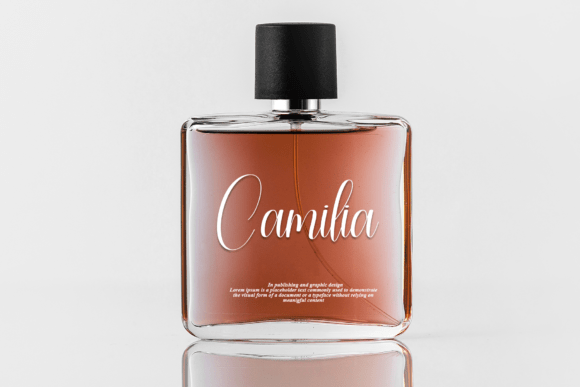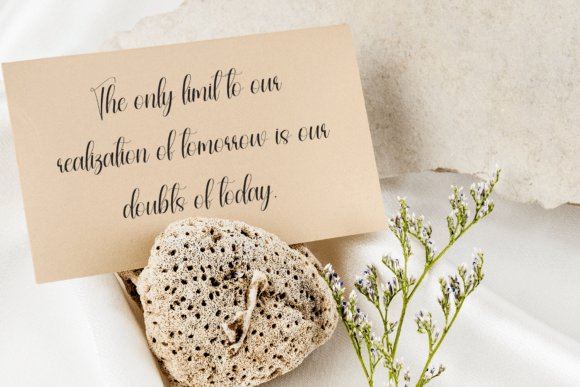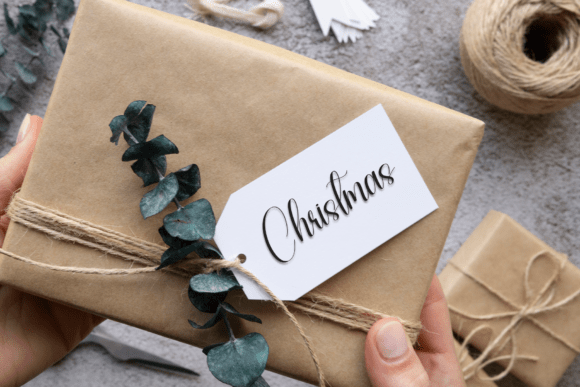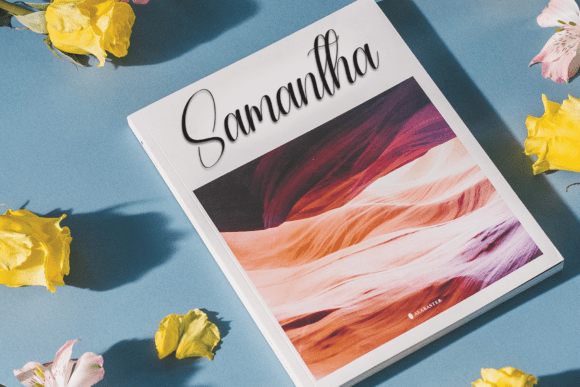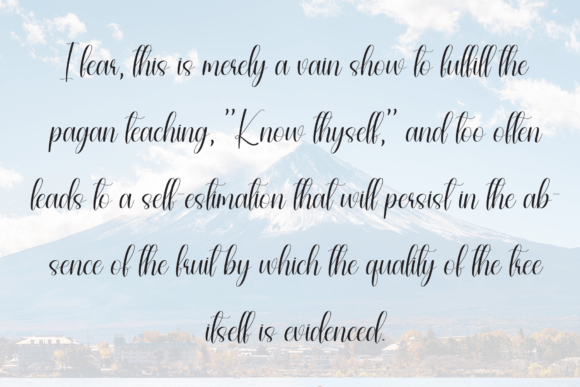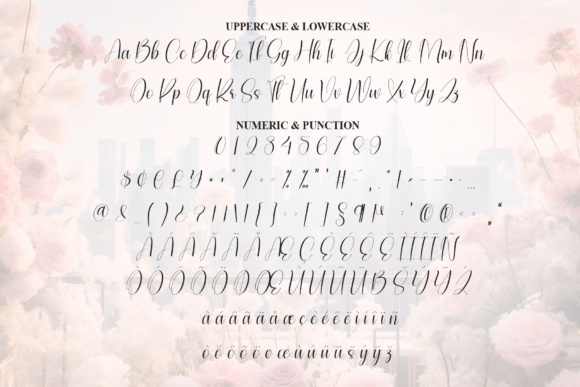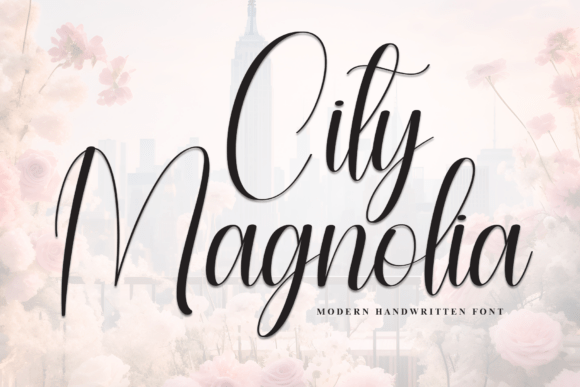
Discover the Elegance of City Magnolia Font: A Stylish Script Font for Modern Designers
In the world of typography, a good font can make all the difference in elevating a design from ordinary to extraordinary. For designers and crafters looking for a stylish and sophisticated touch, City Magnolia Font is an excellent choice. This stunning script font is designed to bring a touch of artistic flair and contemporary elegance to any design project.
The Characteristics of City Magnolia Font
City Magnolia Font boasts fluid brush strokes, dynamic curves, and expressive letterforms that capture the essence of hand-painted calligraphy with a modern twist. The font’s natural flow and vibrant character make it perfect for a wide range of design applications, from logos and invitations to packaging and social media graphics.
What Makes City Magnolia Font Stand Out
So, what sets City Magnolia Font apart from other script fonts on the market? Here are a few key features that make it a standout choice for designers:
- Fluid Brush Strokes: City Magnolia Font features fluid brush strokes that give it a natural, hand-painted look. This makes it perfect for designs that require a touch of elegance and sophistication.
- Dynamic Curves: The font’s dynamic curves add a sense of movement and energy to any design. This makes it ideal for logos, branding materials, and other applications where you want to make a bold statement.
- Expressive Letterforms: Each letterform in City Magnolia Font is carefully crafted to be unique and expressive. This makes it perfect for designs that require a high level of creativity and flair.
City Magnolia Font is incredibly versatile and can be used for a wide range of design applications. Here are a few ideas to get you started:
- Logos and Branding: Use City Magnolia Font to create a stunning logo or branding materials that will help your business stand out from the competition.
- Invitations and Stationery: Add a touch of elegance and sophistication to your invitations, stationery, and other paper goods with City Magnolia Font.
- Packaging Design: Use City Magnolia Font to create eye-catching packaging that will help your product stand out on store shelves.
- Social Media Graphics: Create stunning social media graphics that will help you engage with your audience and build your brand.
Why Designers and Crafters Love City Magnolia Font
City Magnolia Font has quickly become a favorite among designers and crafters due to its unique combination of style, elegance, and versatility. Here are a few reasons why:
- Easy to Use: City Magnolia Font is incredibly easy to use, even for designers who are new to script fonts.
- Highly Customizable: The font is highly customizable, allowing you to adjust the size, color, and style to fit your design needs.
- Unique and Expressive: City Magnolia Font is truly one-of-a-kind, making it perfect for designers who want to add a touch of personality to their designs.
In conclusion, City Magnolia Font is a stylish script font that is perfect for designers and crafters looking to add a touch of artistic flair and contemporary elegance to their designs. With its fluid brush strokes, dynamic curves, and expressive letterforms, this font is sure to make a bold statement in any design project. Whether you’re creating logos, invitations, packaging, or social media graphics, City Magnolia Font is an excellent choice.